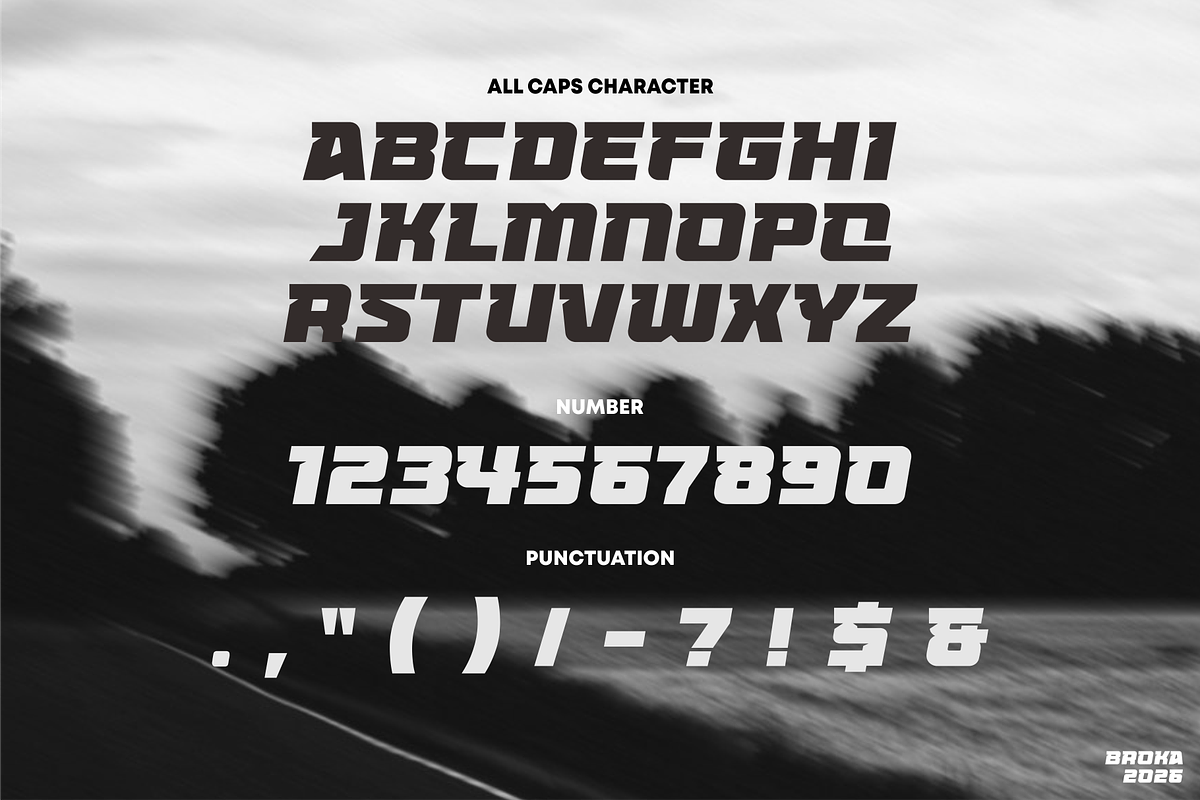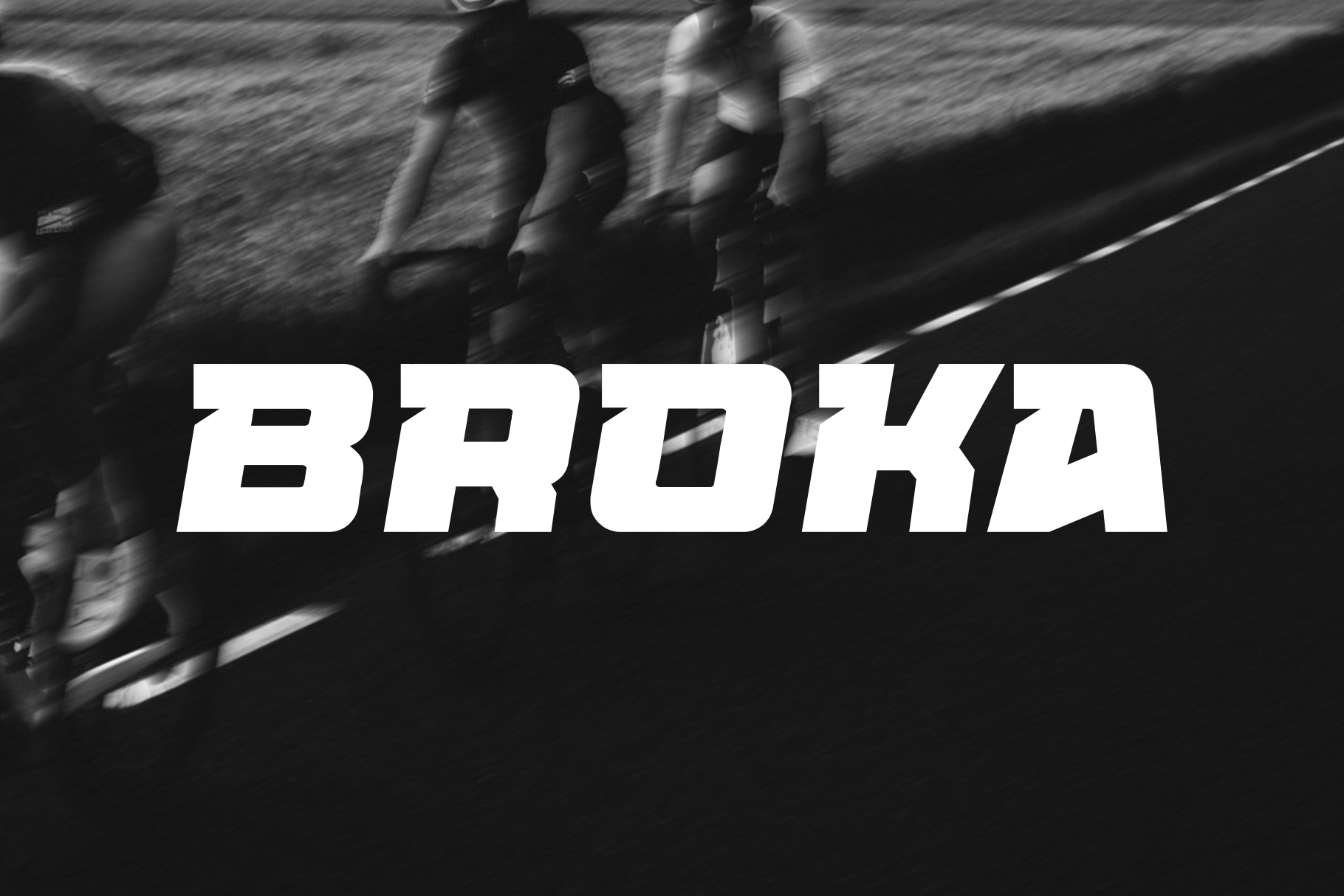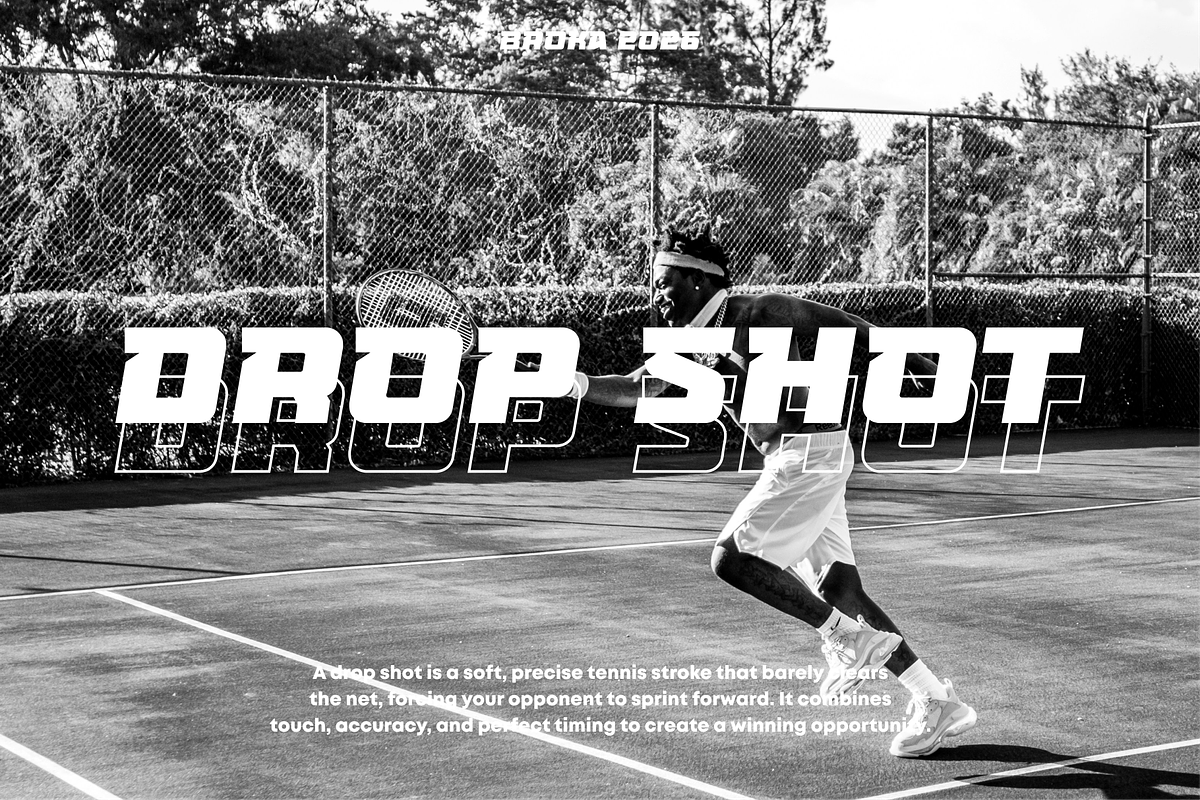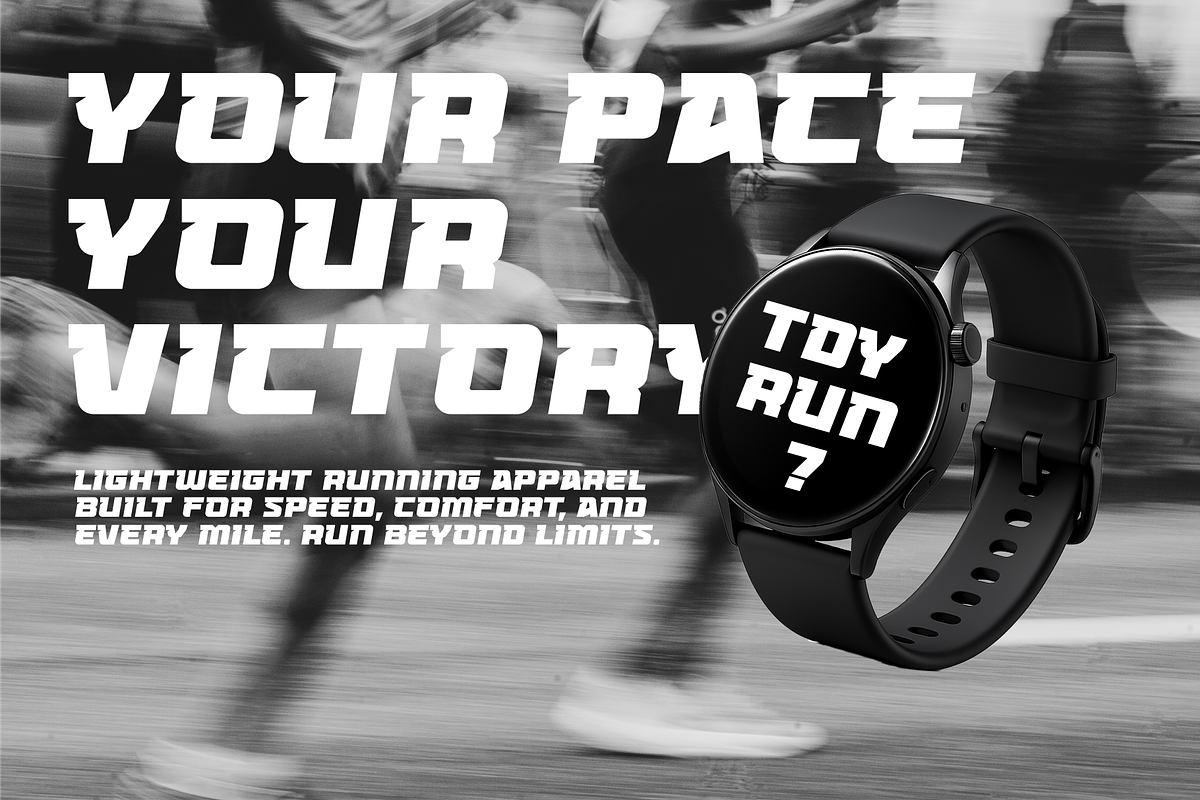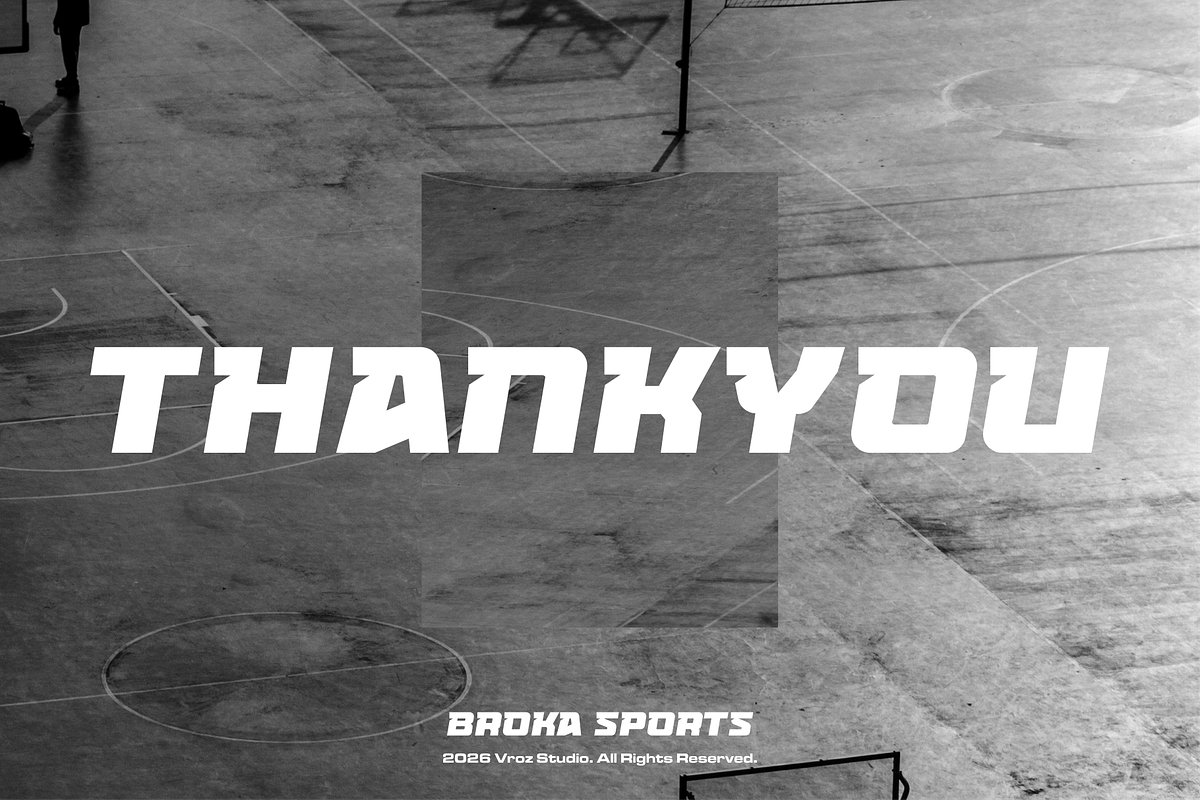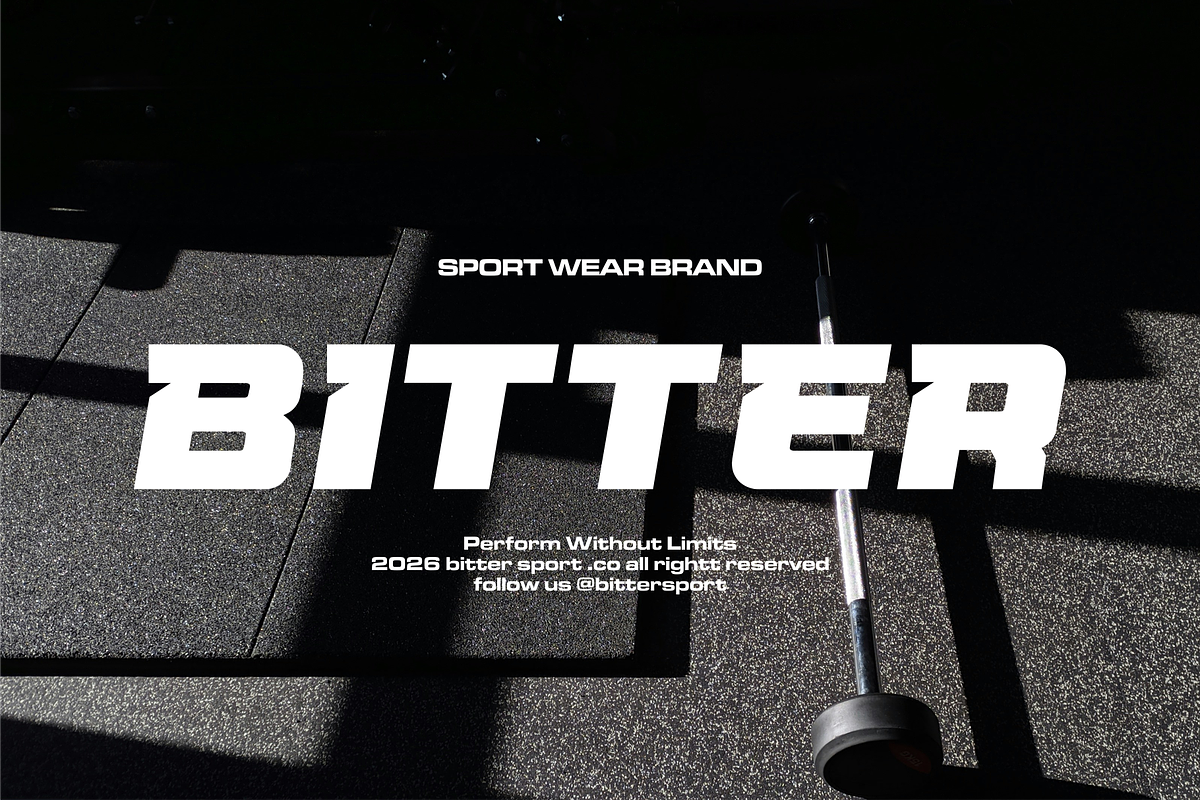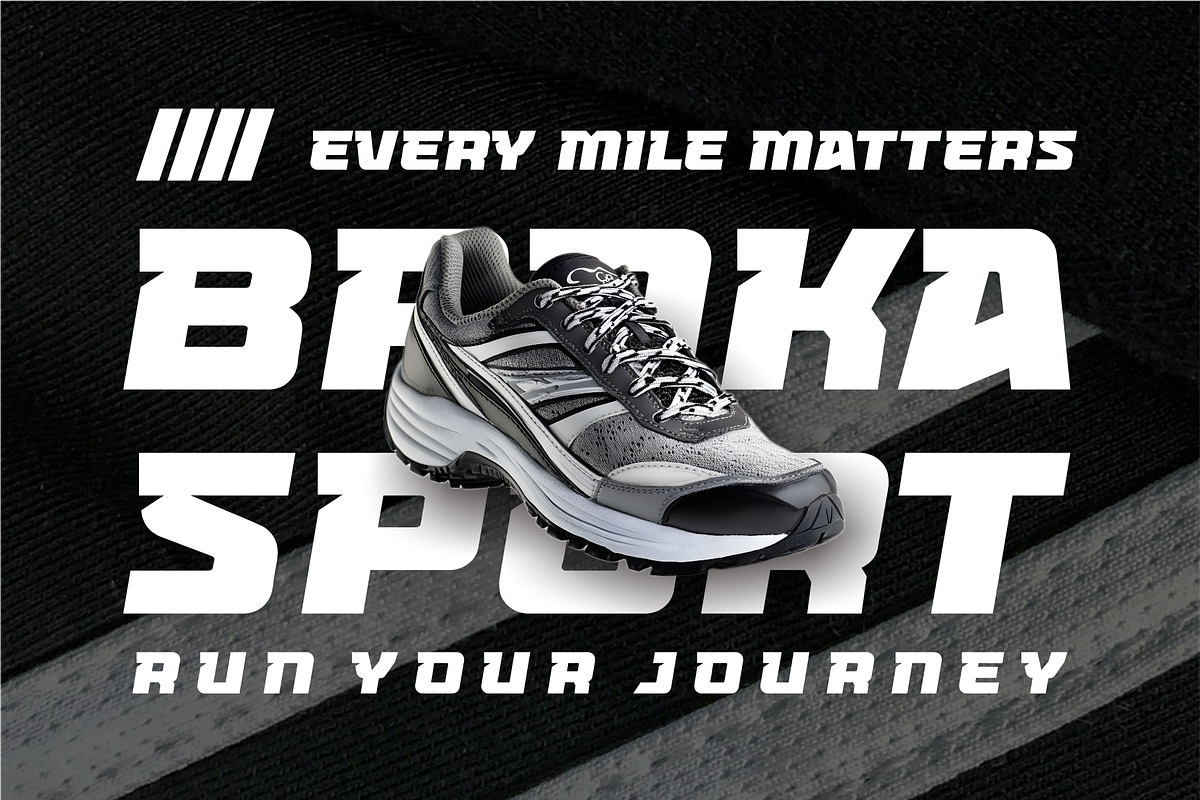
Broka - Sport Font
BROKA – Bold Sports Display Font
BROKA is a bold sports display font engineered for speed, power, and peak performance. With aggressive angles, strong letterforms, and a modern athletic character, it is designed to make every headline stand out with confidence and impact.
Perfect for sports branding, esports, team logos, gym identities, football and basketball graphics, racing events, fitness campaigns, apparel, social media, and high-energy promotional designs. BROKA combines excellent readability with a bold, competitive style that captures the spirit of modern sports.
* Bold Sports Display Style
* Strong & Dynamic Letterforms
* Modern Athletic Look
* High Readability
* Easy to Use
Built for brands that demand strength and visibility, BROKA delivers a powerful typographic presence across print and digital media. Whether you're creating championship branding, esports identities, event posters, or fitness promotions, BROKA provides the energy, precision, and impact needed to elevate every design.